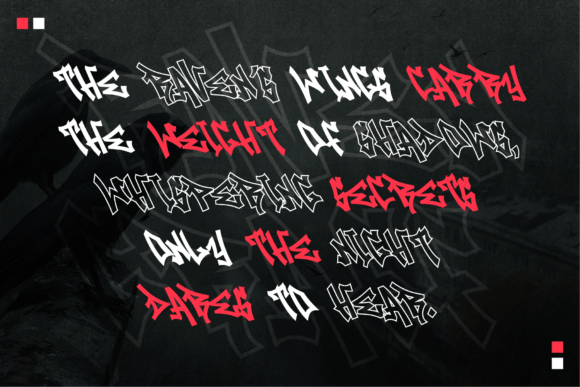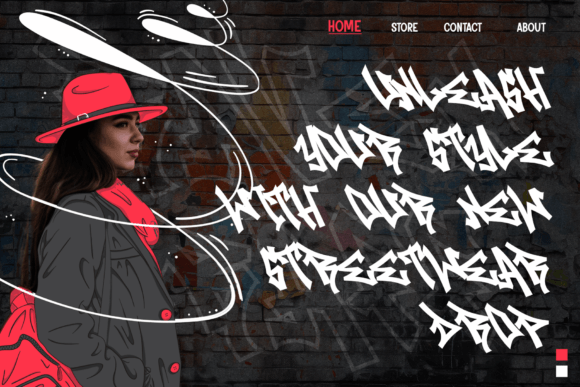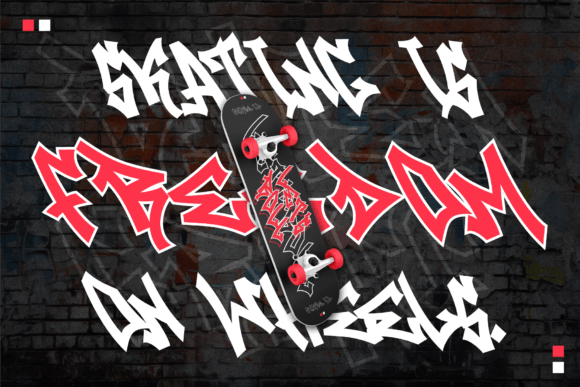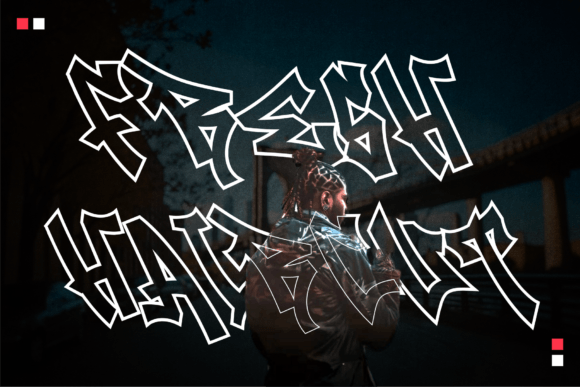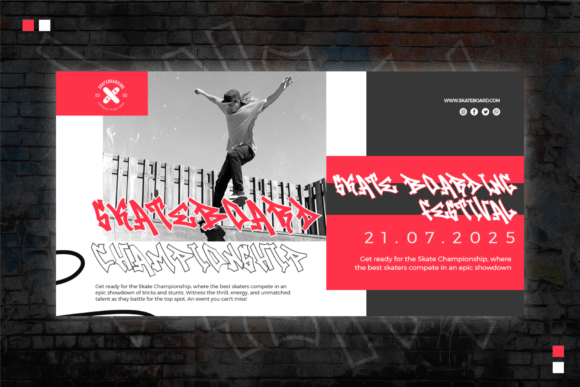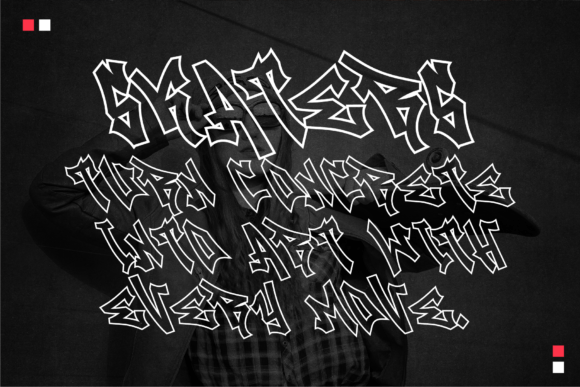
Introduction to Raven Graff Font
Have you ever found yourself lost in the midst of a bustling city, surrounded by vibrant street art that seems to leap off the walls? For many creatives, this is the moment when inspiration strikes, and the world of typography comes alive. It’s a feeling that can be hard to capture, but one font has managed to bottle the essence of urban artistry – welcome to the world of Raven Graff Font.
As a dynamic monoline graffiti-style font, Raven Graff Font is a game-changer for designers looking to add a touch of high-quality, authentic street art to their creative projects. With its razor-sharp edges and transparent background, this design resource is a must-have for anyone looking to elevate their work to the next level.
Key Features of Raven Graff Font
- Unique, high-quality design: The Raven Graff Font is a premium design resource ideal for creative projects requiring a touch of sophistication.
- Transparent background: This font features a transparent background, allowing for seamless integration with any design or background image.
- Perfect for creative projects: The Raven Graff Font is ideal for use in various creative projects, including branding, advertising, and editorial design.
Honest Review: Raven Graff Font
As a designer, I’ve had the chance to experiment with various fonts for my creative projects. Recently, I came across the Raven Graff Font, which caught my attention with its unique aesthetic. Here’s my honest review.
- ✨ High-quality design: The Raven Graff Font is well-crafted, with clear and bold lines that make it perfect for headings and titles.
- ✨ Unique style: The font’s gothic-inspired design adds a touch of sophistication to any project, making it ideal for those looking for something different.
- ⚠️ Limited font sizes: The font is best suited for larger font sizes, as it can become pixelated at smaller sizes.
- ⚠️ Not ideal for body text: Due to its bold and dramatic design, the Raven Graff Font is not suitable for large blocks of text.
Overall, I’m impressed with the Raven Graff Font’s unique design and high-quality construction. While it may have some limitations, it’s a great resource for designers looking to add some flair to their creative projects. With a transparent background, it’s easy to use in various design applications. I’d definitely recommend giving it a try for your next project.
Tips for Getting the Most Out of Raven Graff Font
Use the Raven Graff Font in conjunction with a high-quality design project for the best results. Experiment with different font sizes, colors, and arrangements to find the perfect look for your creative project. Don’t be afraid to try out new and unique combinations to make your design stand out.
Common Use Cases for Raven Graff Font